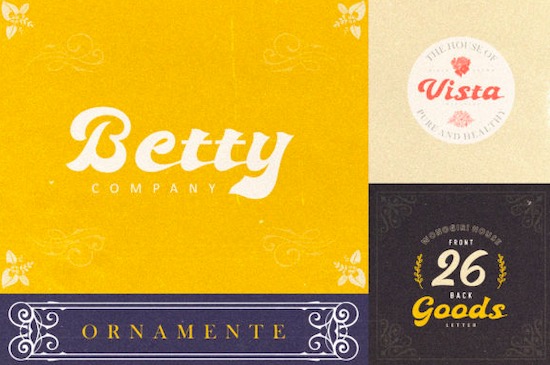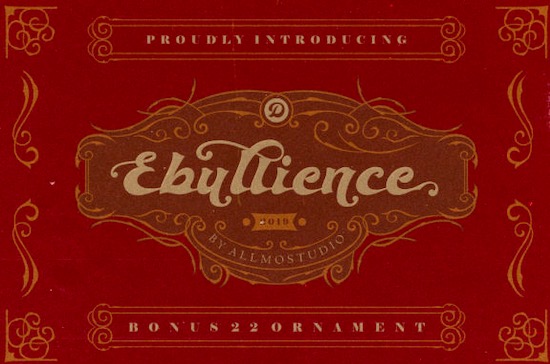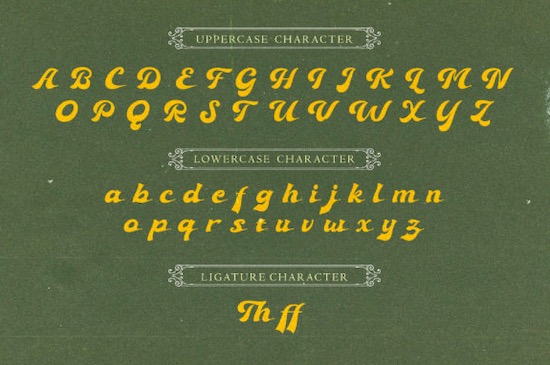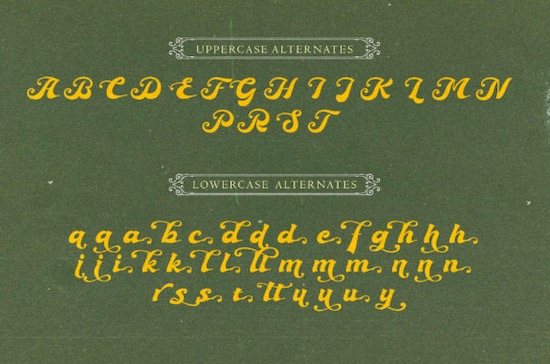
Ebullience font is a modern and latest Retro typeface with a great Script font style. It comes with a classic, modern, and cool feel, and the making of this font is inspired by badge design, sign, and dynamic culture. This Ebullience font is designed and released by AllmoStudio and it comes with punctuations, lowercase, uppercase, and numerals.
Ebullience is an eye-catching yet soft script font. So, this font is very modern, cool, beautiful in business cards, greeting cards, thank you cards, and looking gorgeous on logos, wedding invitations, quotes, and every other graphic design that require a handwritten touch.
Ebullience Retro Script font
Add this font to your most creative design ideas, the professional, or premium design projects, and notice how it makes them become a stand out product!